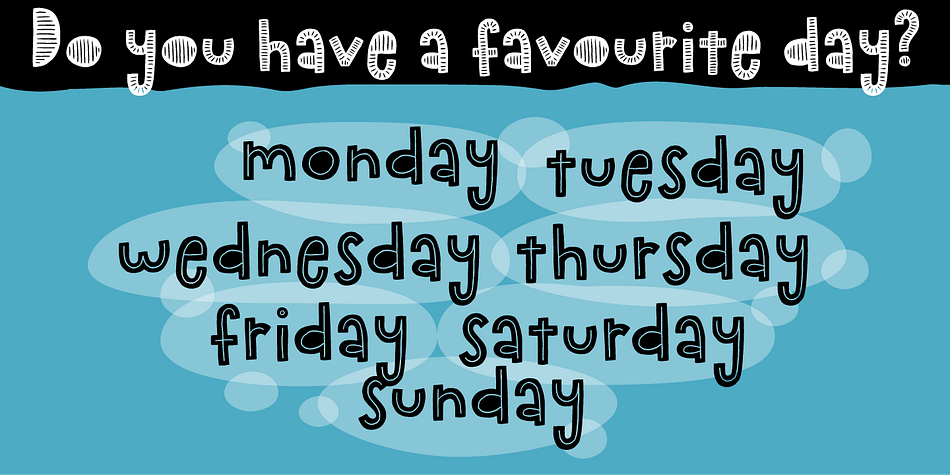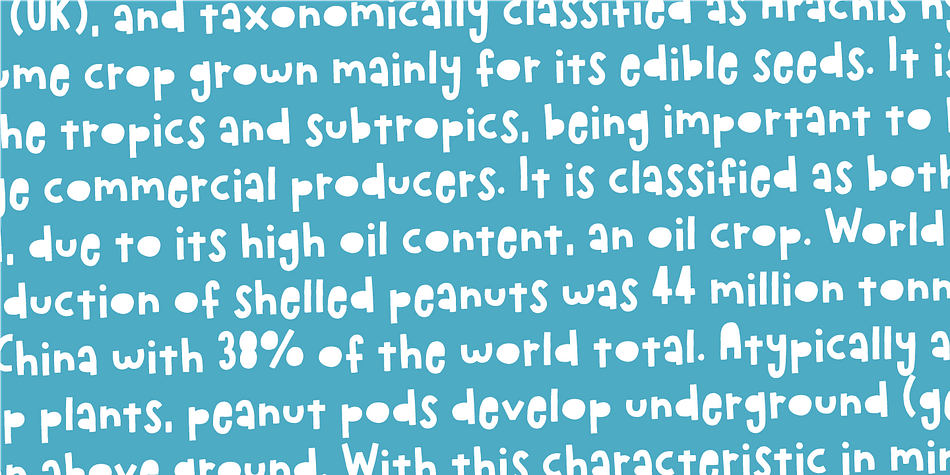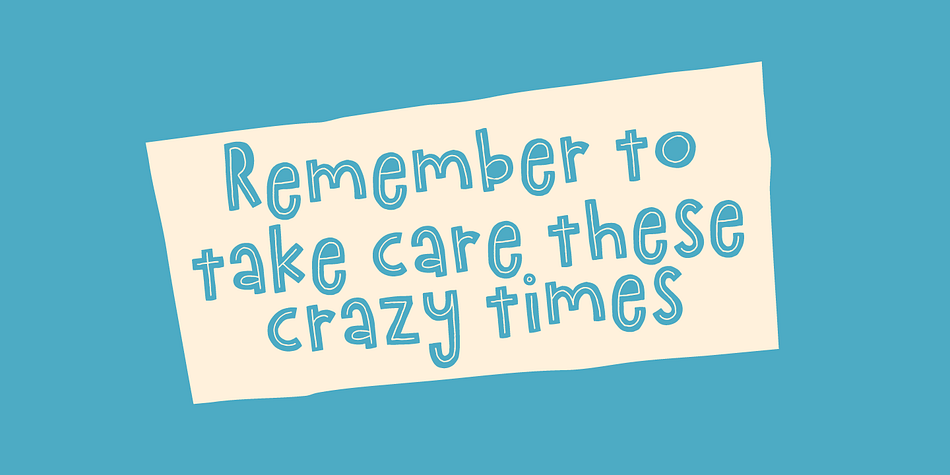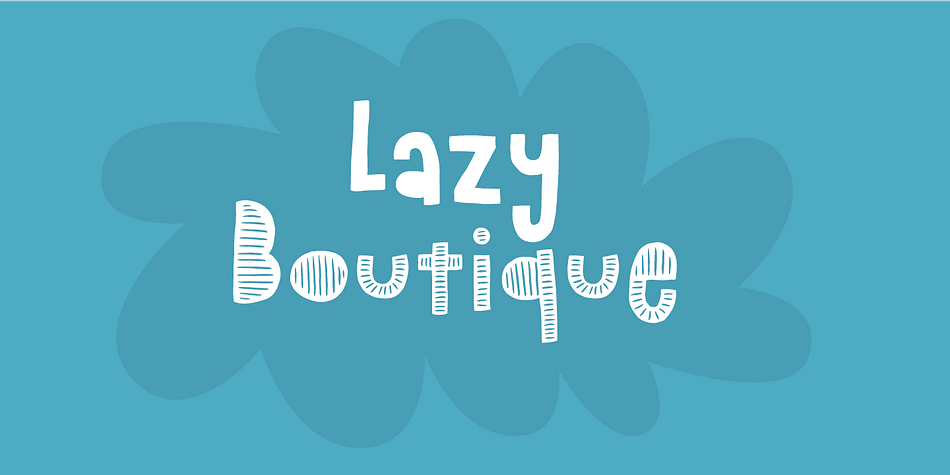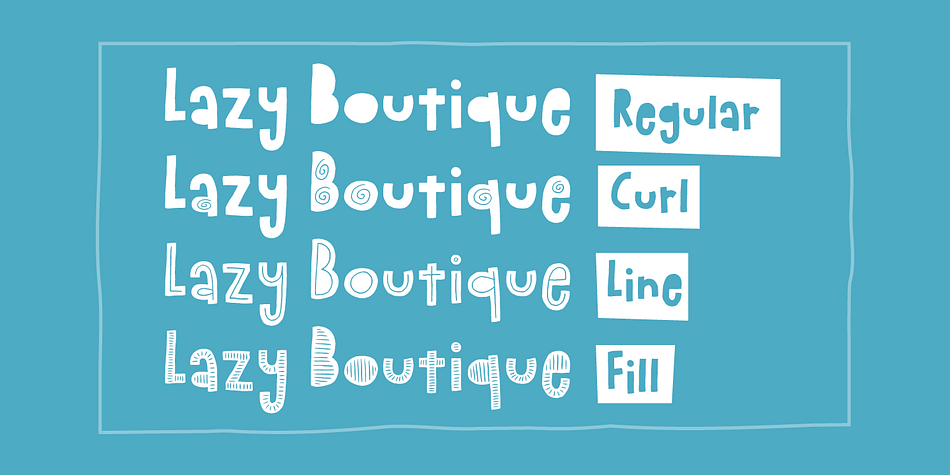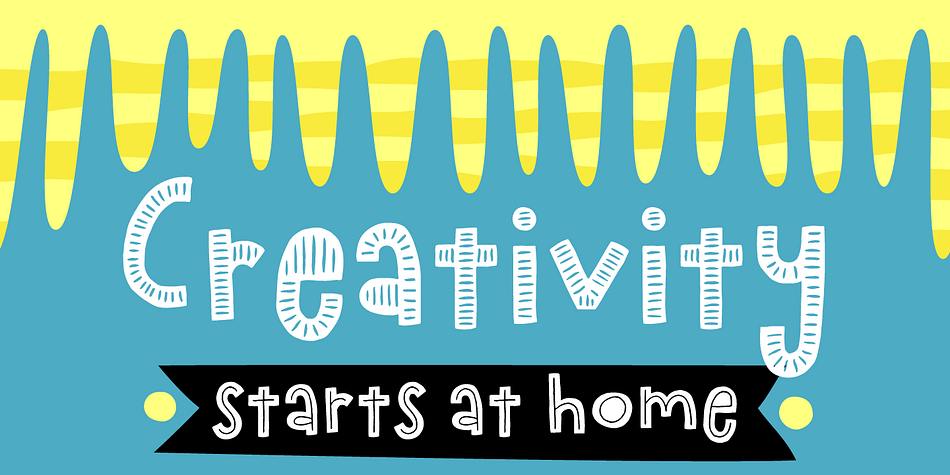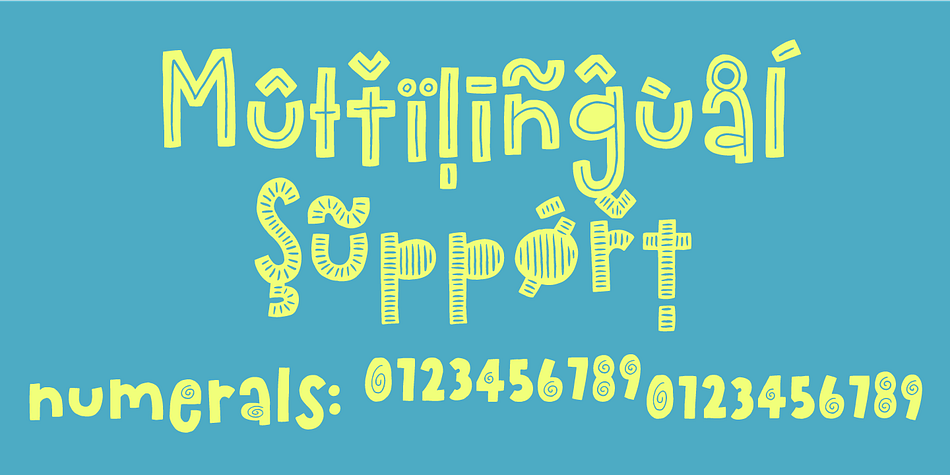
Designed by Jakob Fischer, Lazy Boutique is a hand display font family. This typeface has four styles and was published by Bogstav.
Lazy Boutique is and exciting and beautiful piece of work. It’s 100% handmade and slightly irregular in an organic way. I’ve added X different versions: Regular, Line, Fill and Curl - mix and match to find your favourite kind of look .
Use Lazy Boutique for your products that needs a handmade, organic and exciting look!